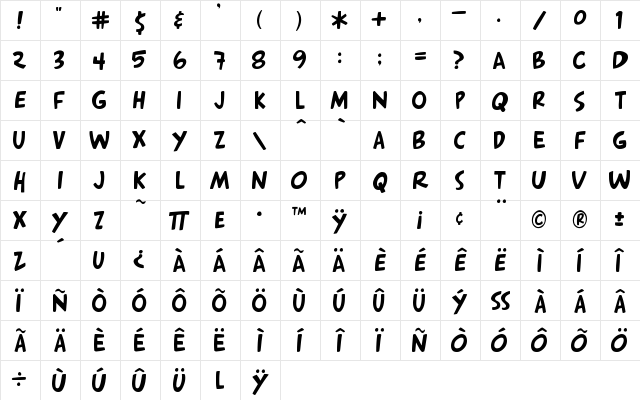
Arnold 2.1 Regular
Design Context for Arnold 2.1
Arnold 2.1 is a composed and adaptable typeface that performs quietly and consistently across a wide range of design contexts.
Pro Tip: Use Arnold 2.1 in both headline and body roles to test its range before committing to a single application.